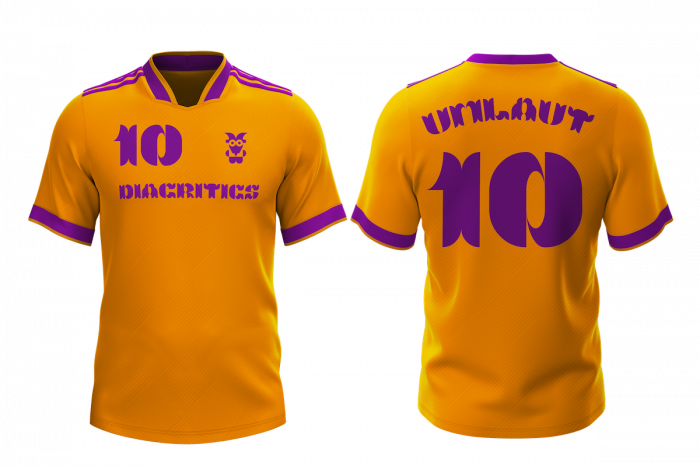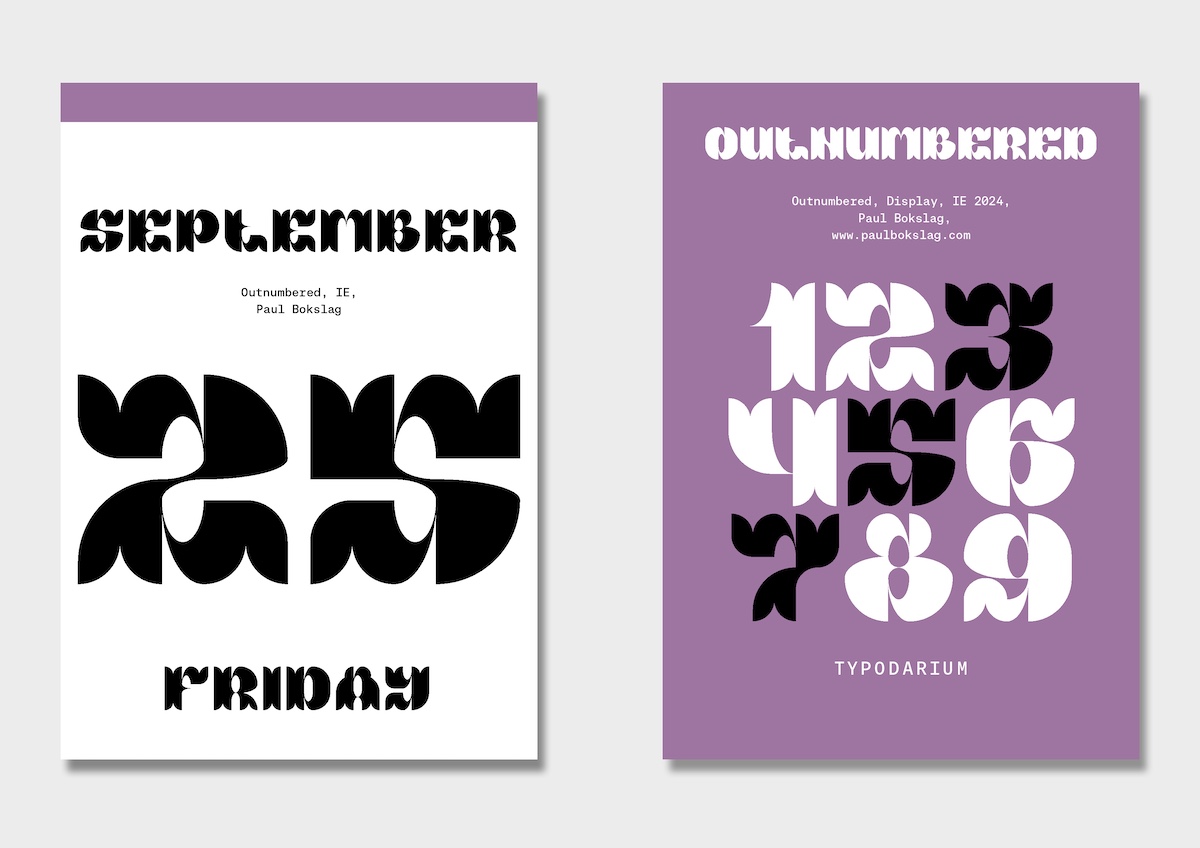
Sweet tuscan-style boldface, just wondering what's the "number" aspect of the glyphs?
Pretty nice sweet!
Nice and balanced work. Those fishtail endings remind me of folk art furniture with similar motifs. Congratulations. 10/10
This is a truly beautiful font, congratulations on the competition!